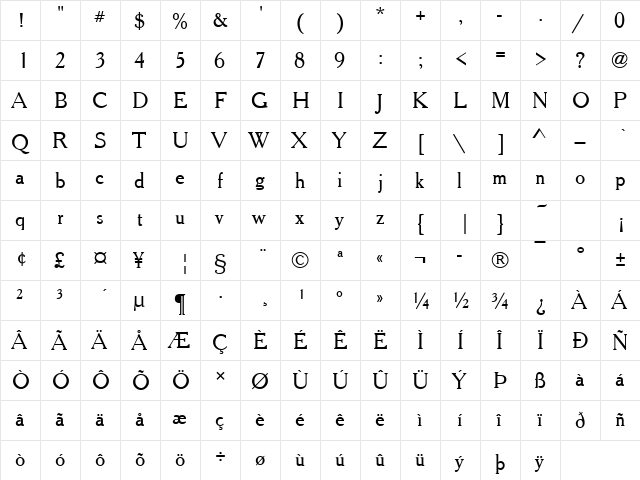
Cheltenham Becker Old Style No2 Regular
Design Context for Cheltenham Becker Old Style No2 Typeface
Cheltenham Becker Old Style No2 takes a measured approach to typography — its balanced proportions and neutral character make it a reliable workhorse for both digital and print work.